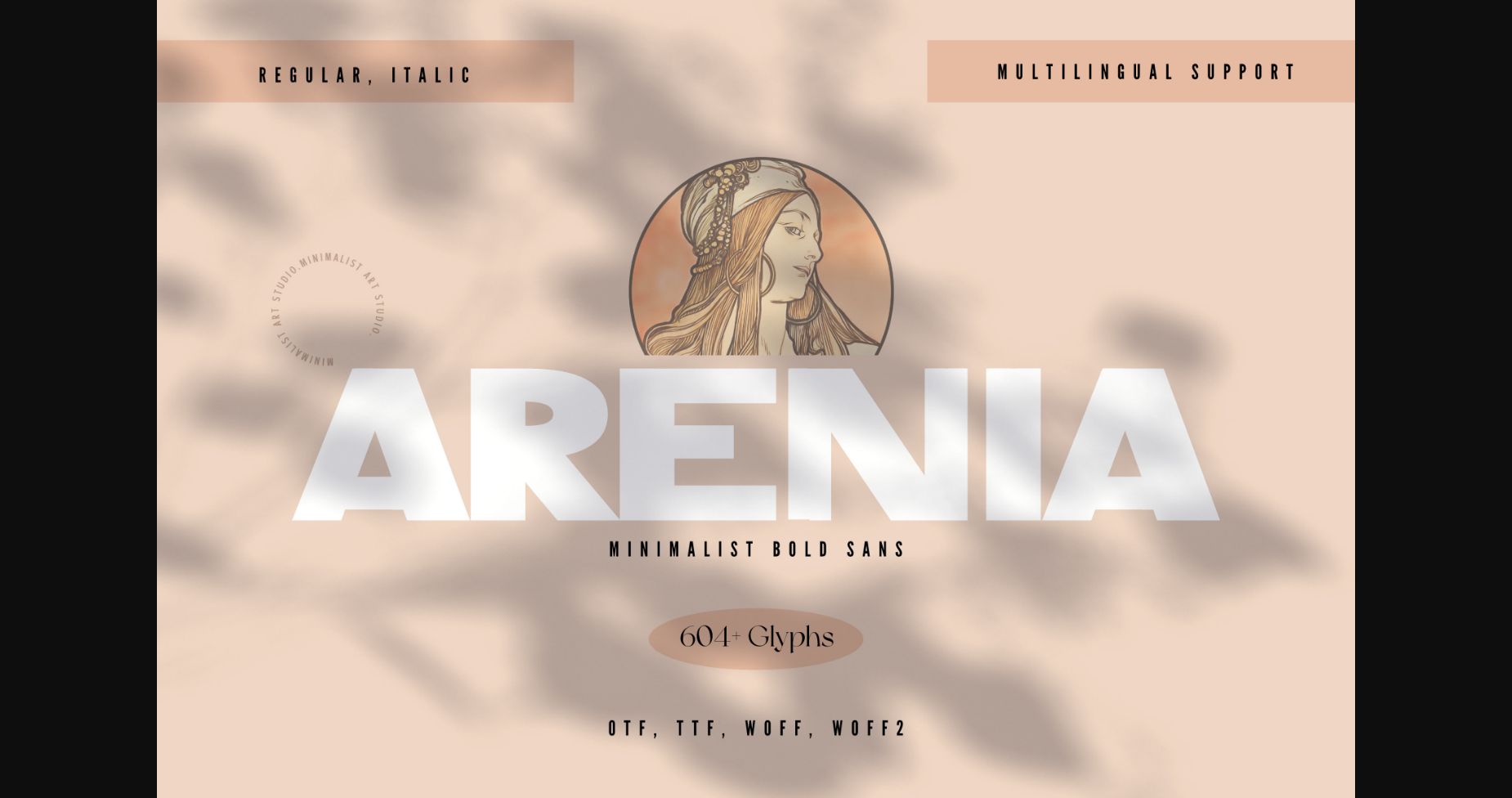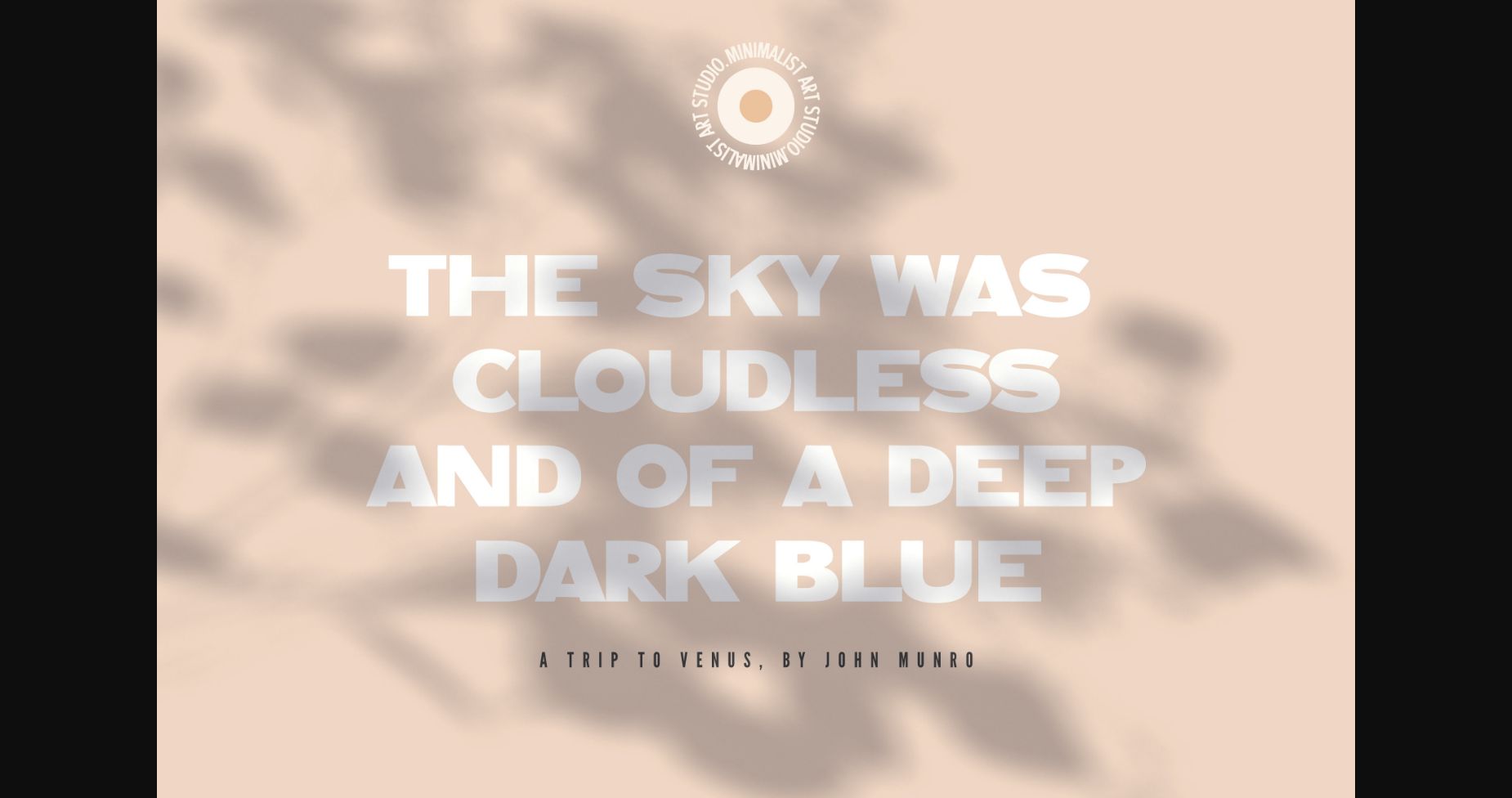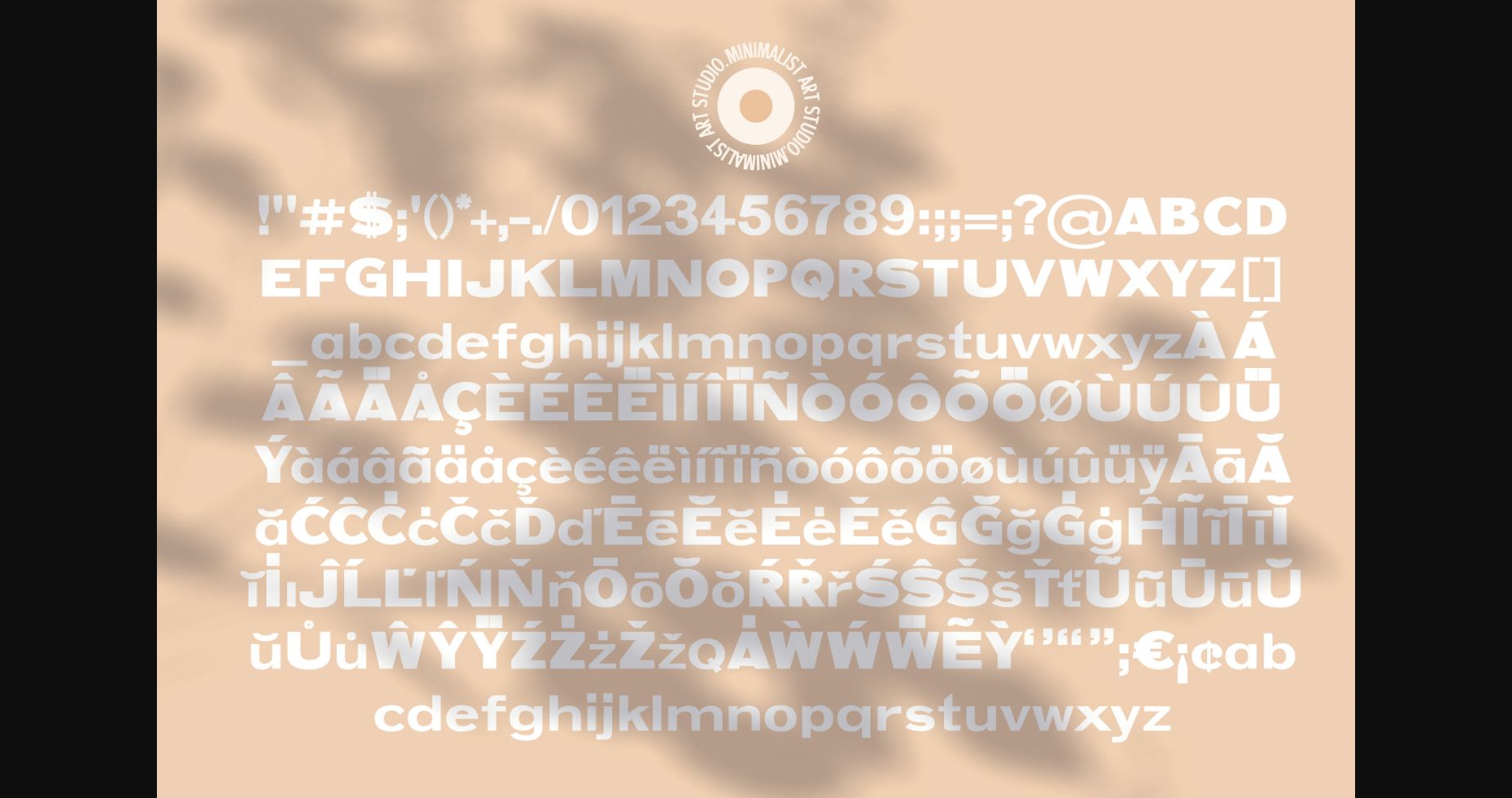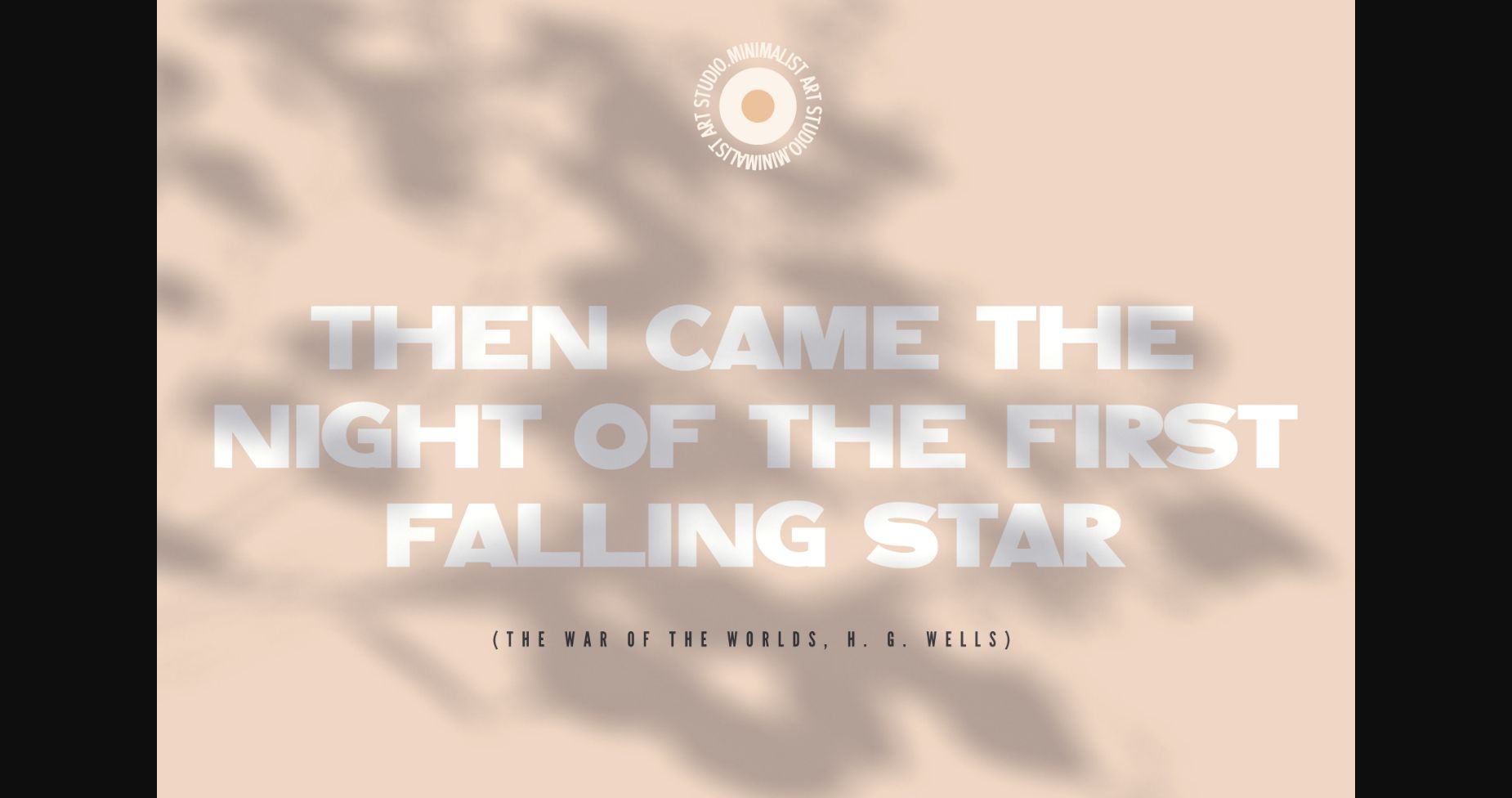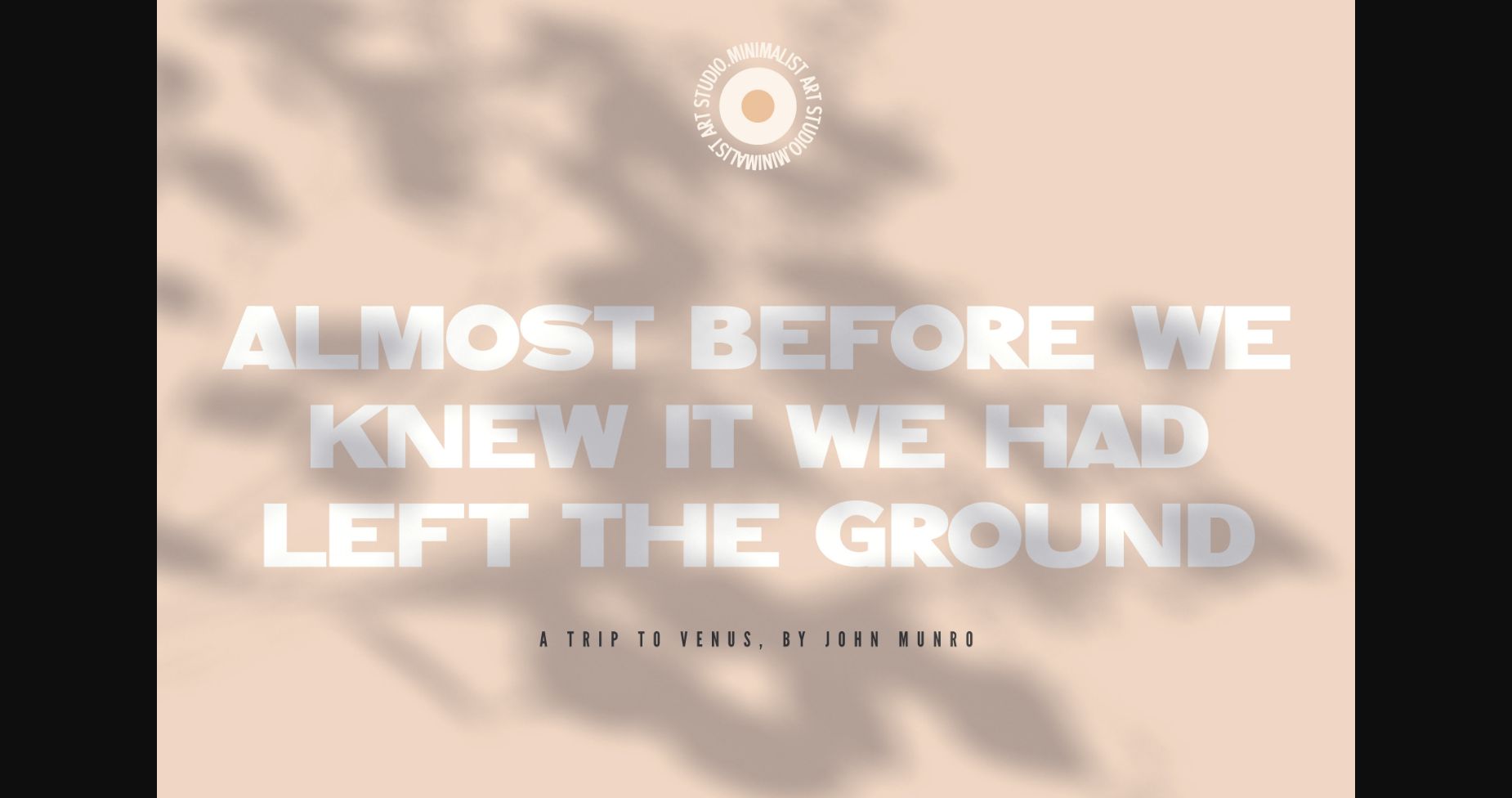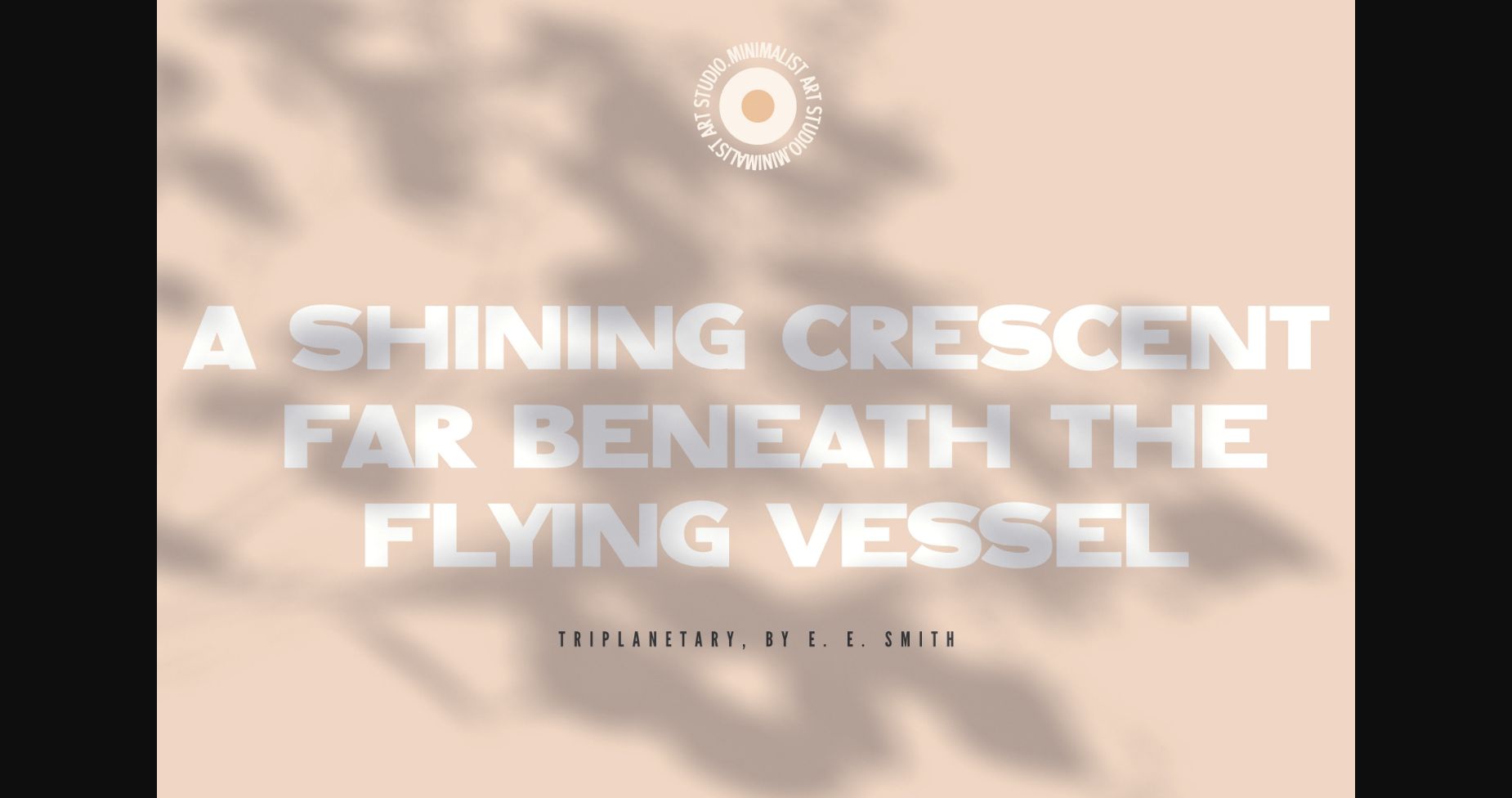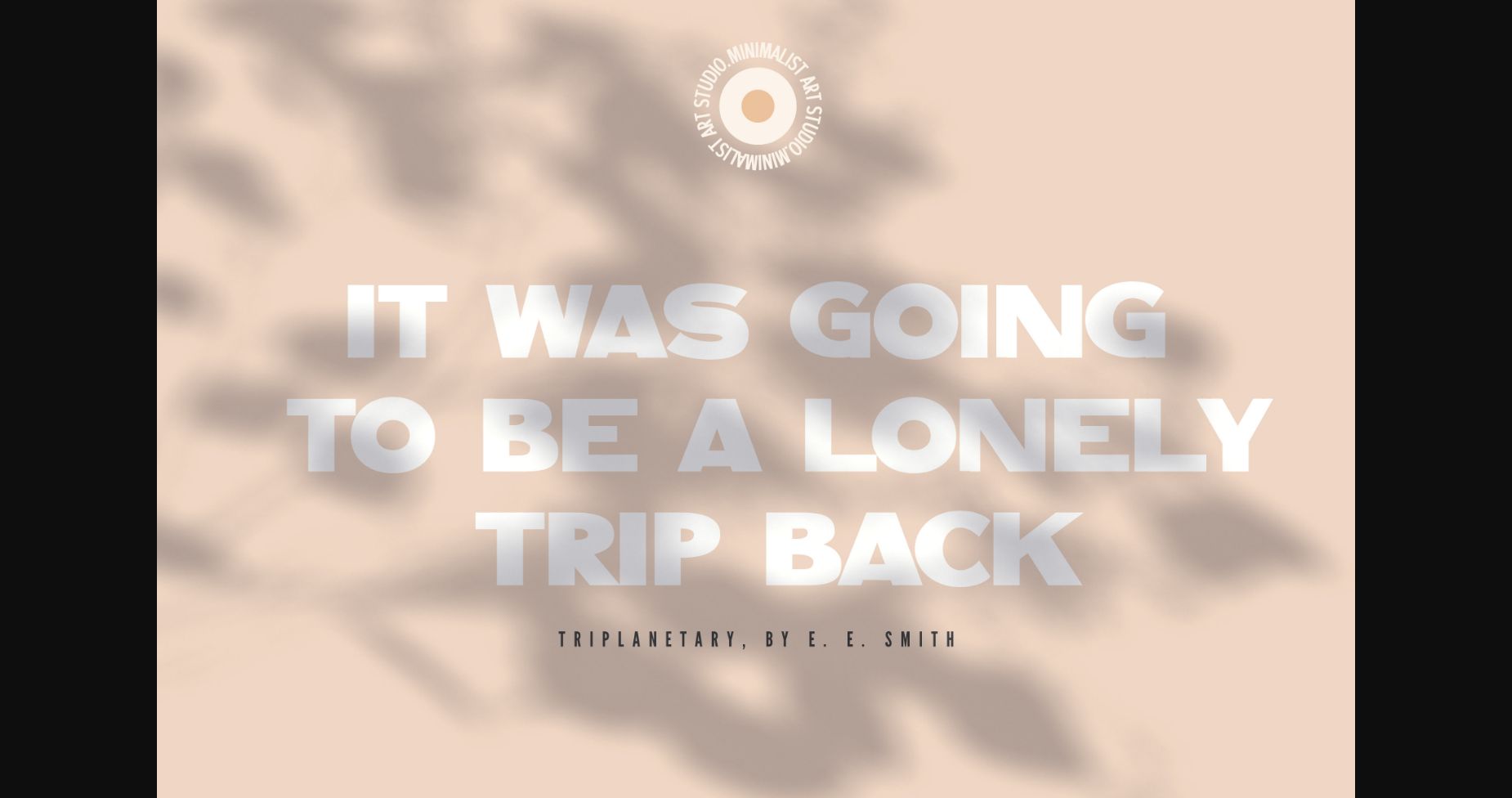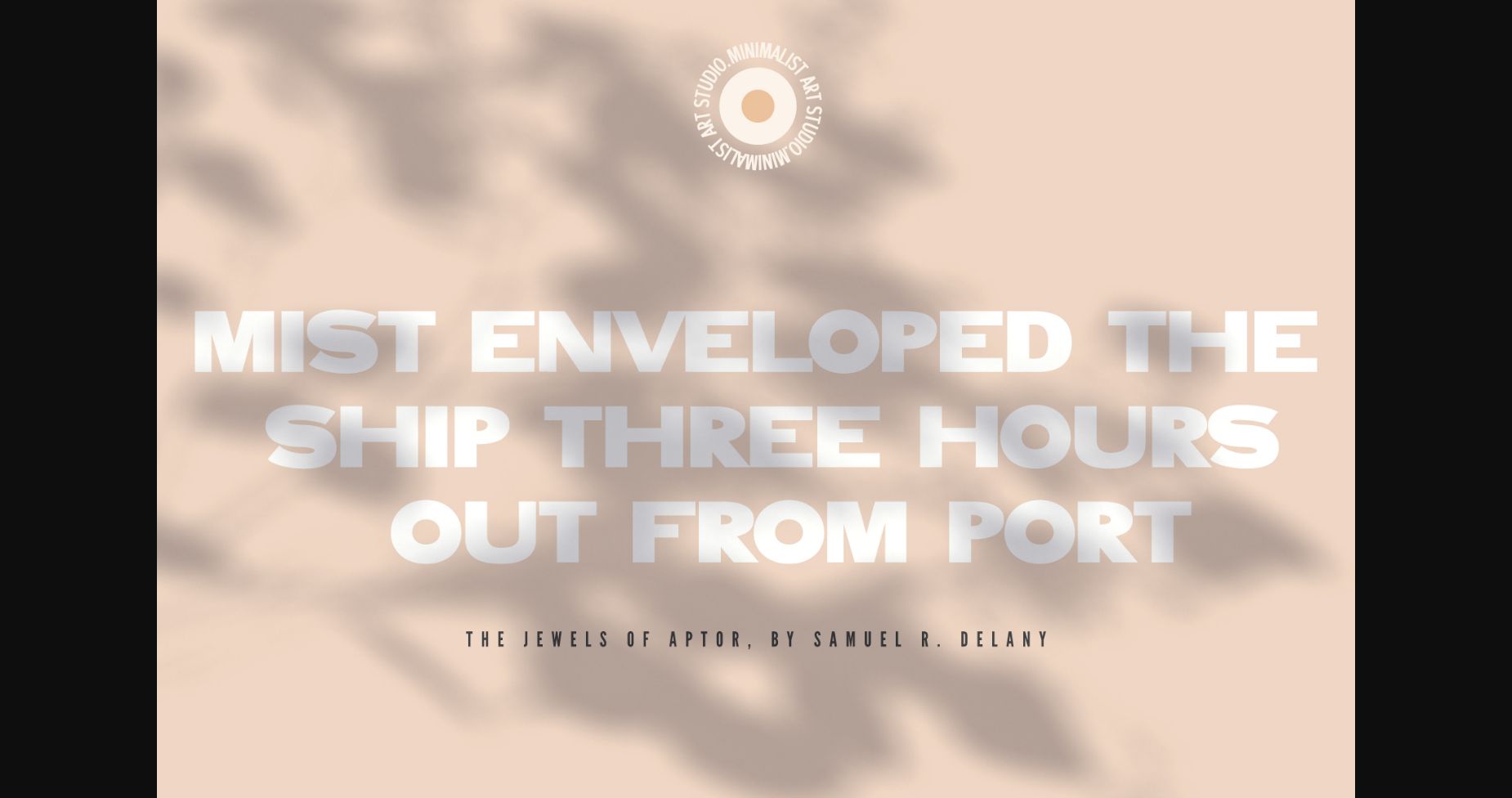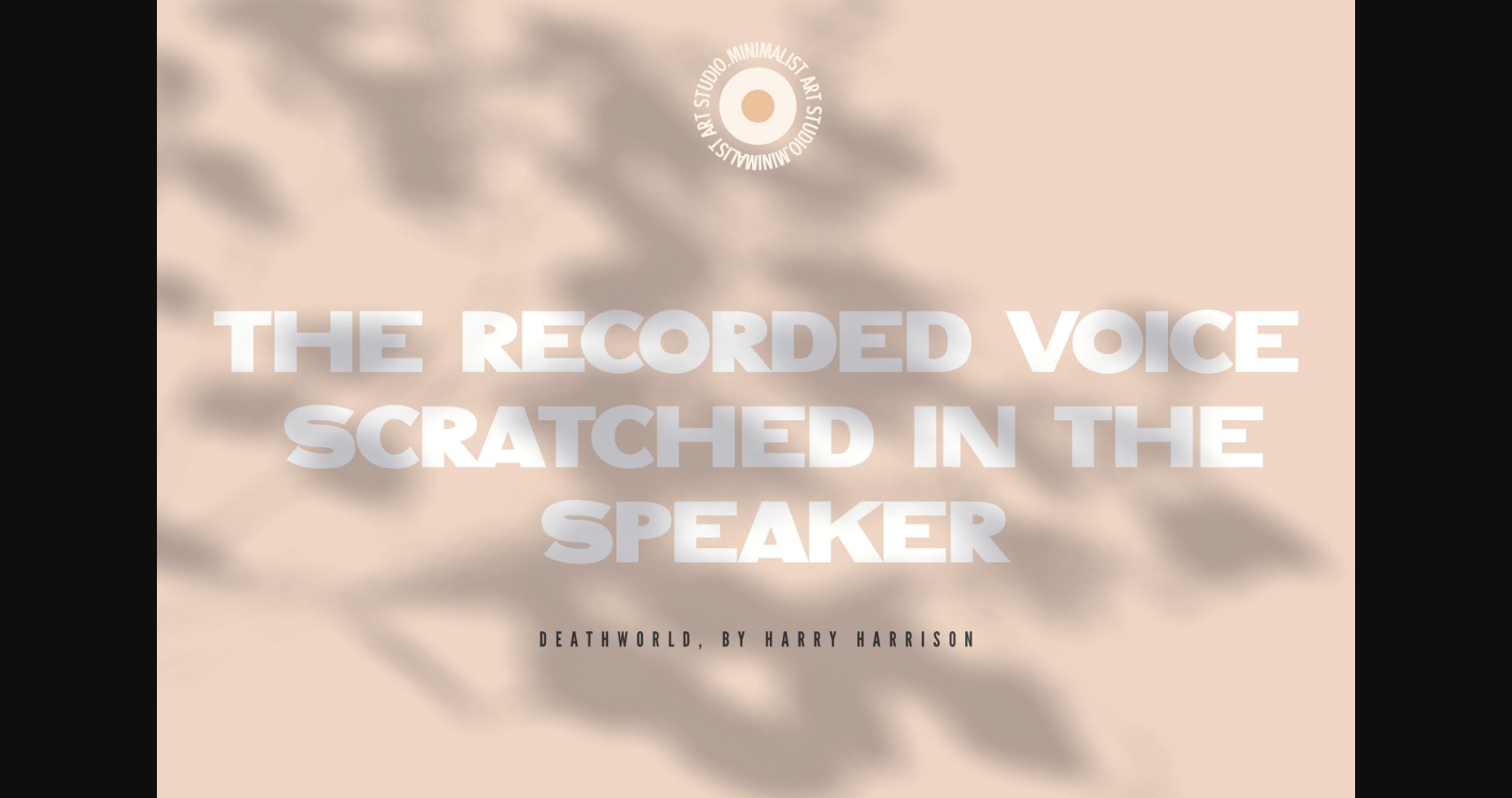
Arenia Font
About Arenia Font
Introducing the stunning and sophisticated sans serif font that will take your design projects to the next level. With a total of 604+ glyphs, this font is designed to be minimalist and bold, while still exuding an elegant and refined style.
One of the key features of this font is its multilingual support, making it a versatile option for a wide range of design applications. Whether you’re creating packaging designs, working on cosmetic branding, or designing posters, fashion products, or perfumes, this font is a must-have tool in your design arsenal.
The clean and sleek lines of this sans-serif font make it perfect for headlines and branding materials. Its bold and minimalistic design ensures that your message will stand out, while still maintaining a sophisticated and refined look.
With its extensive glyph library, this font provides a wide range of options to suit your design needs. It features a full set of uppercase and lowercase letters, as well as numbers, punctuation, and special characters.
This font is perfect for creating modern, high-end designs that require a professional touch. Its bold, minimalist style will add a touch of elegance and sophistication to any project, making it the ideal choice for designers looking to make a statement.
Overall, this elegant and versatile font is a must-have tool for any designer who wants to create stunning and eye-catching designs. Its extensive glyph library, multilingual support, and bold, minimalist style make it perfect for a wide range of applications, from packaging and branding to fashion and cosmetics. So why wait? Add this font to your design toolkit today and take your projects to the next level!